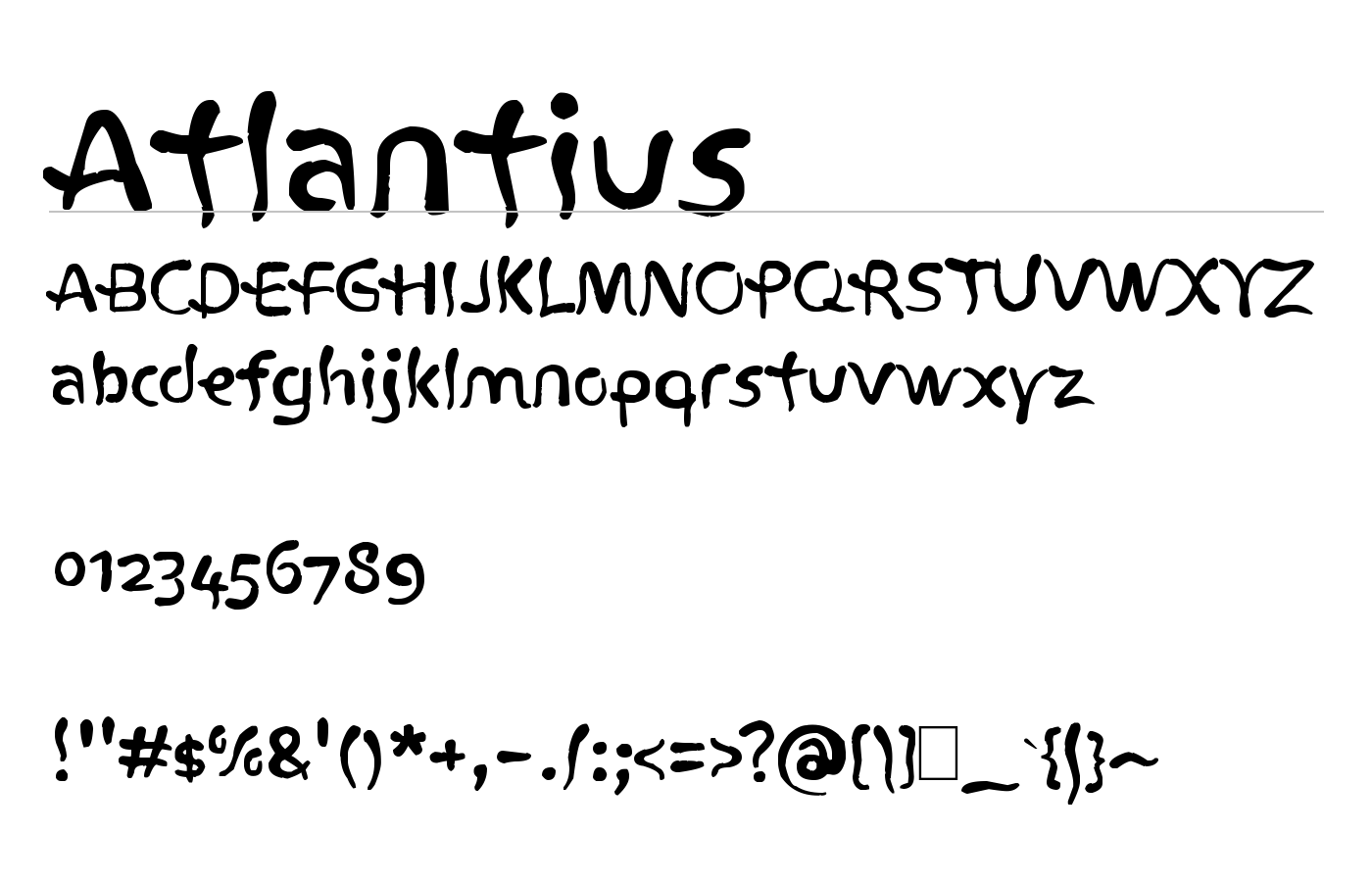
Atlantius is a casual, handwritten-style sans serif font with a playful and friendly character. Its irregular stroke widths and slightly quirky letterforms give it a relaxed, approachable feel, making it well-suited for informal designs and creative projects. This font works great for children’s books, greeting cards, or any design aiming for a warm, personal touch.
Atlantius Font
About Atlantius Font